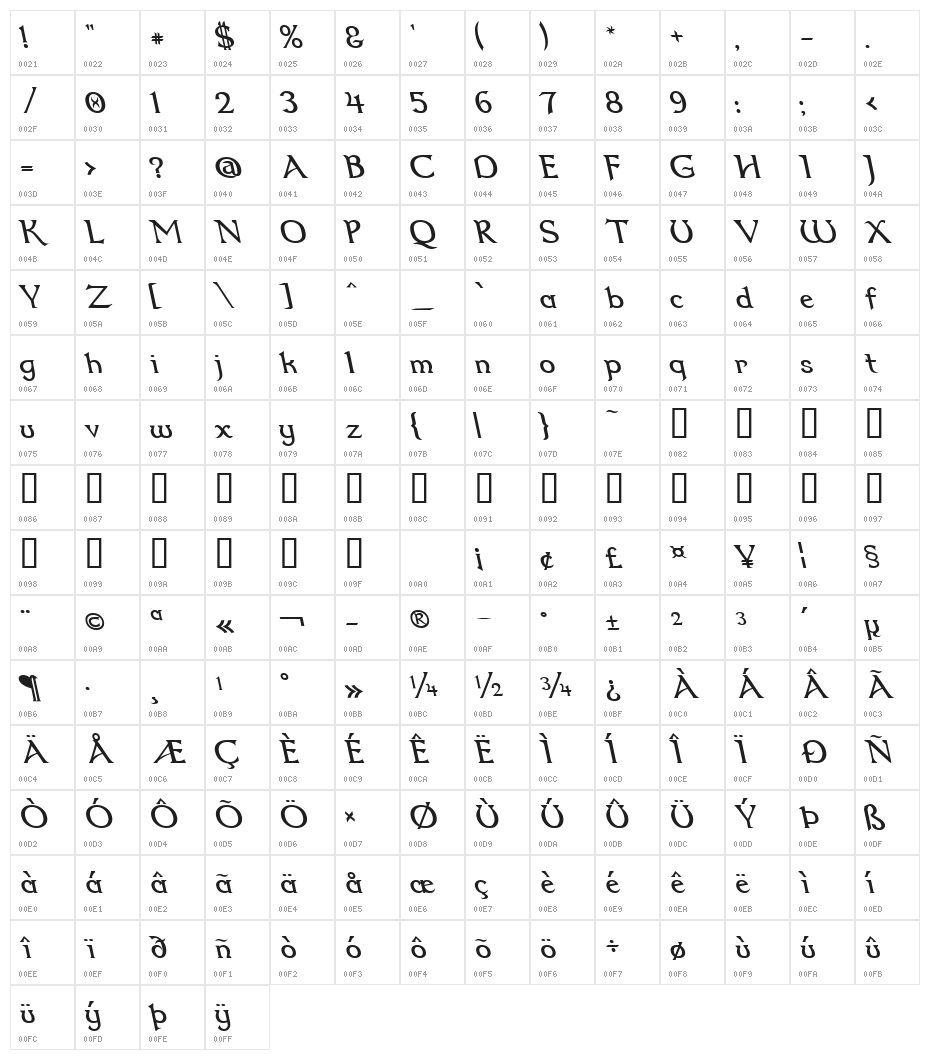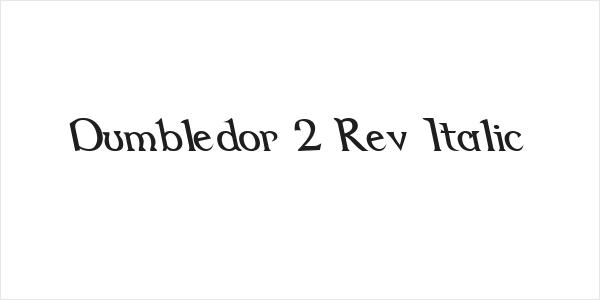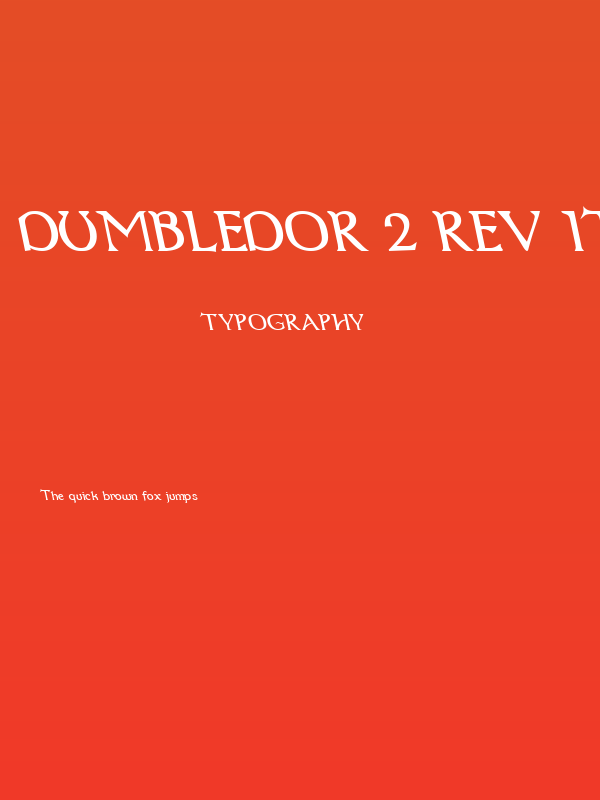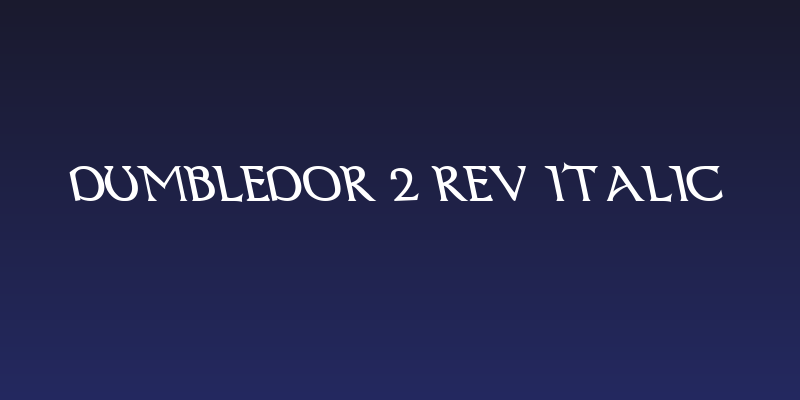
Dumbledor 2 Rev Italic Font
Dumbledor 2 Rev Italic Description
This font features a whimsical and decorative style with a medieval flair. The characters exhibit a unique blend of sharp angles and smooth curves, creating a dynamic and engaging appearance. The uppercase letters are bold and commanding, while the lowercase letters maintain a playful yet sophisticated look. The numerals and special characters are consistent with the overall theme, adding to the font's cohesive design. The italic slant enhances the font's fluidity, making it suitable for creative and artistic projects.
| Proposed Projects | Ideal for fantasy-themed designs, book covers, posters, and branding projects that require a touch of elegance and creativity. |